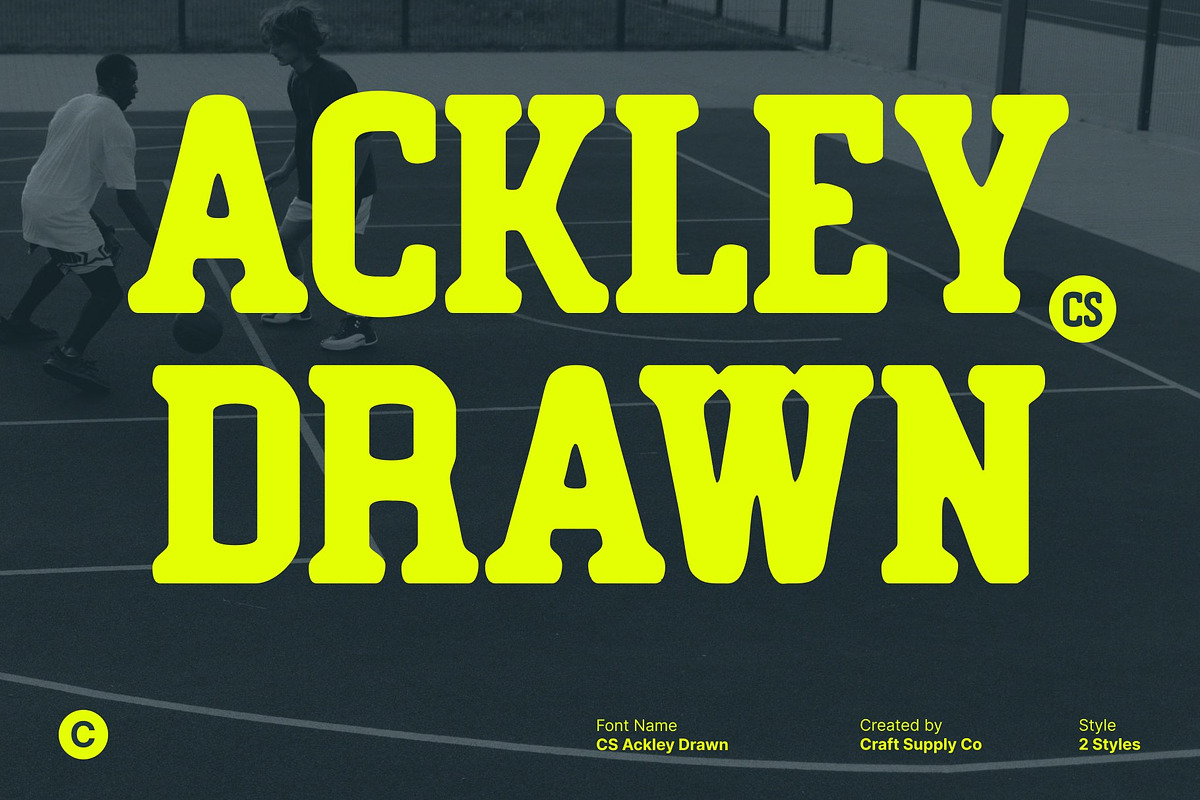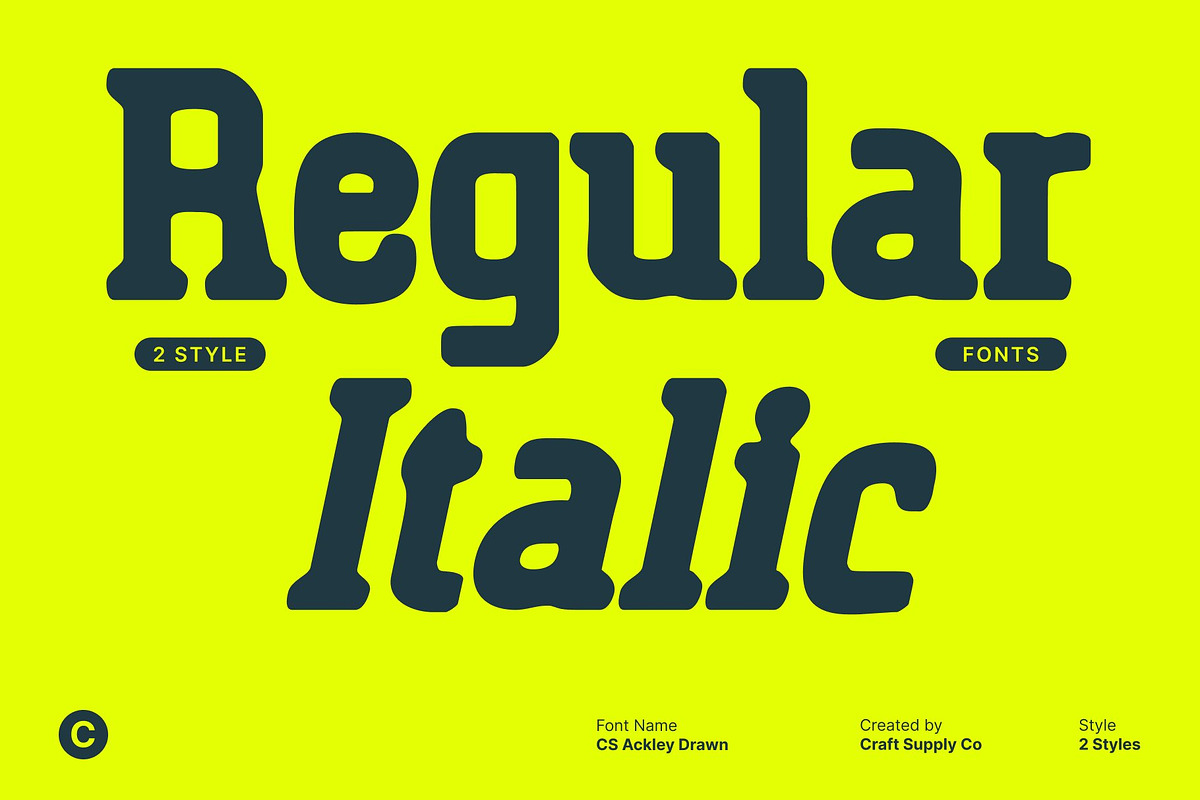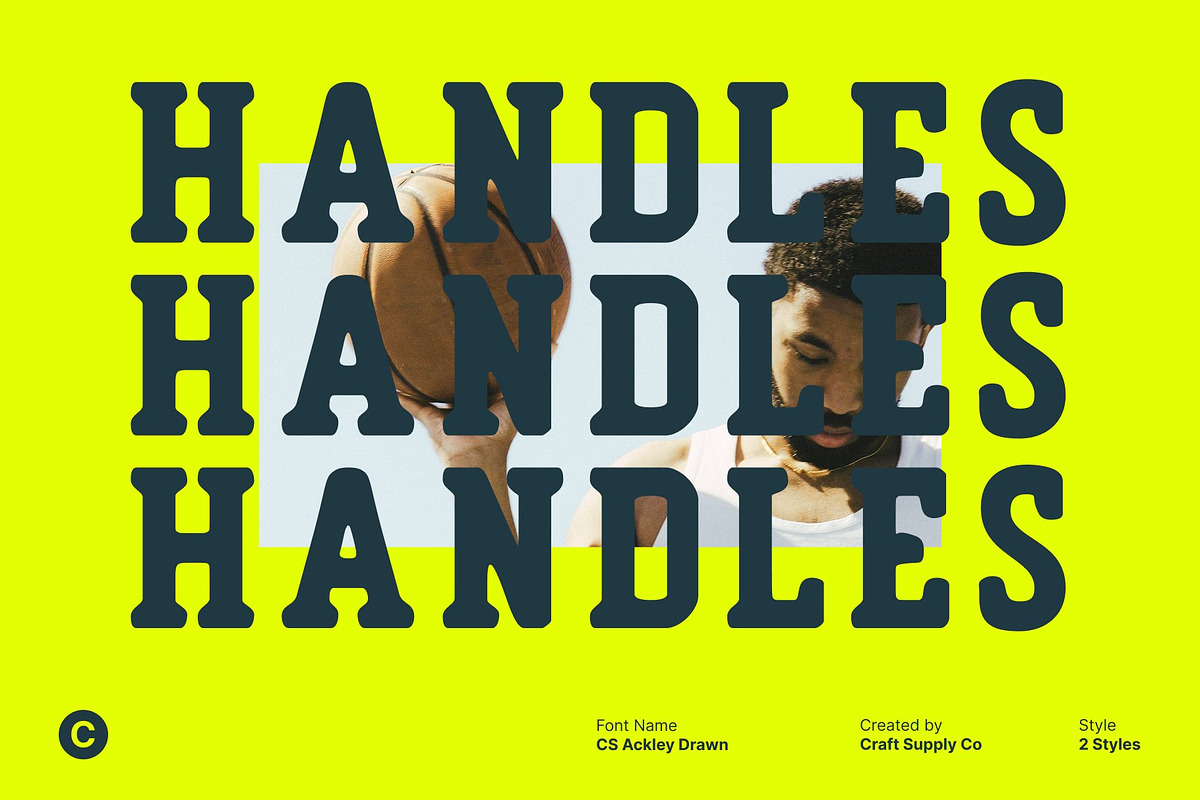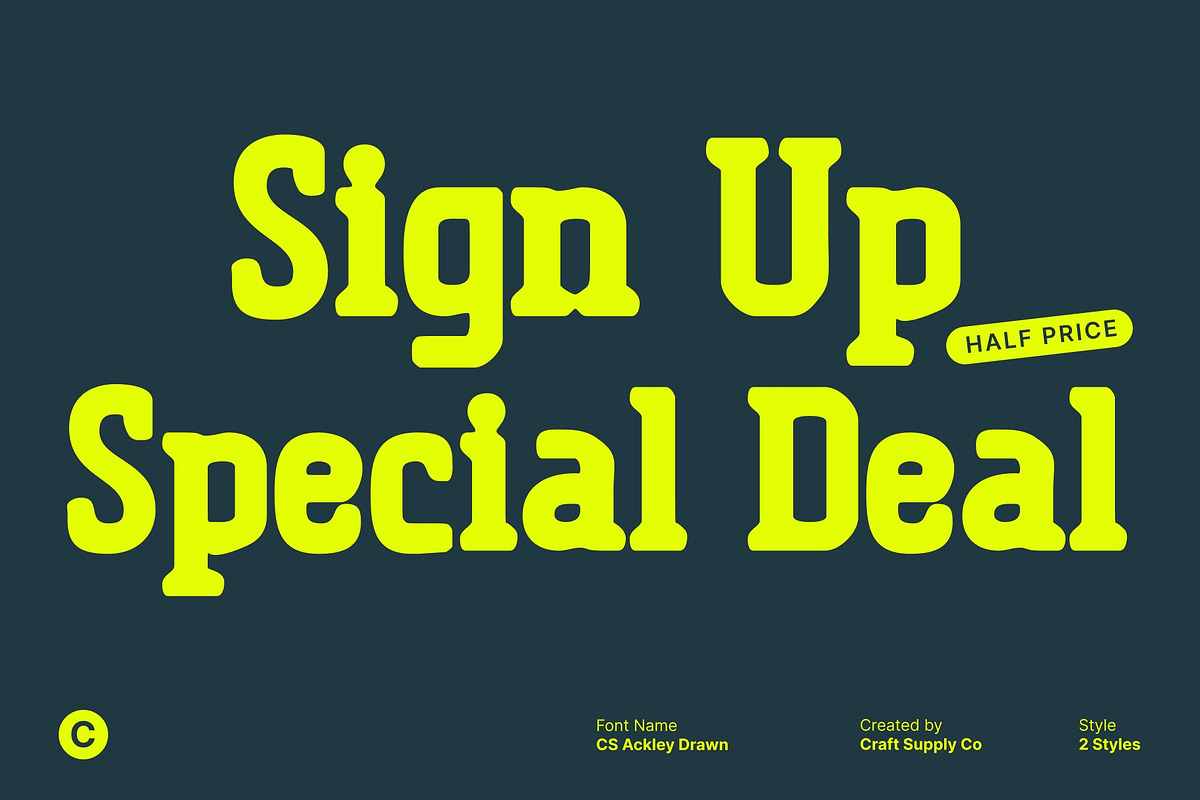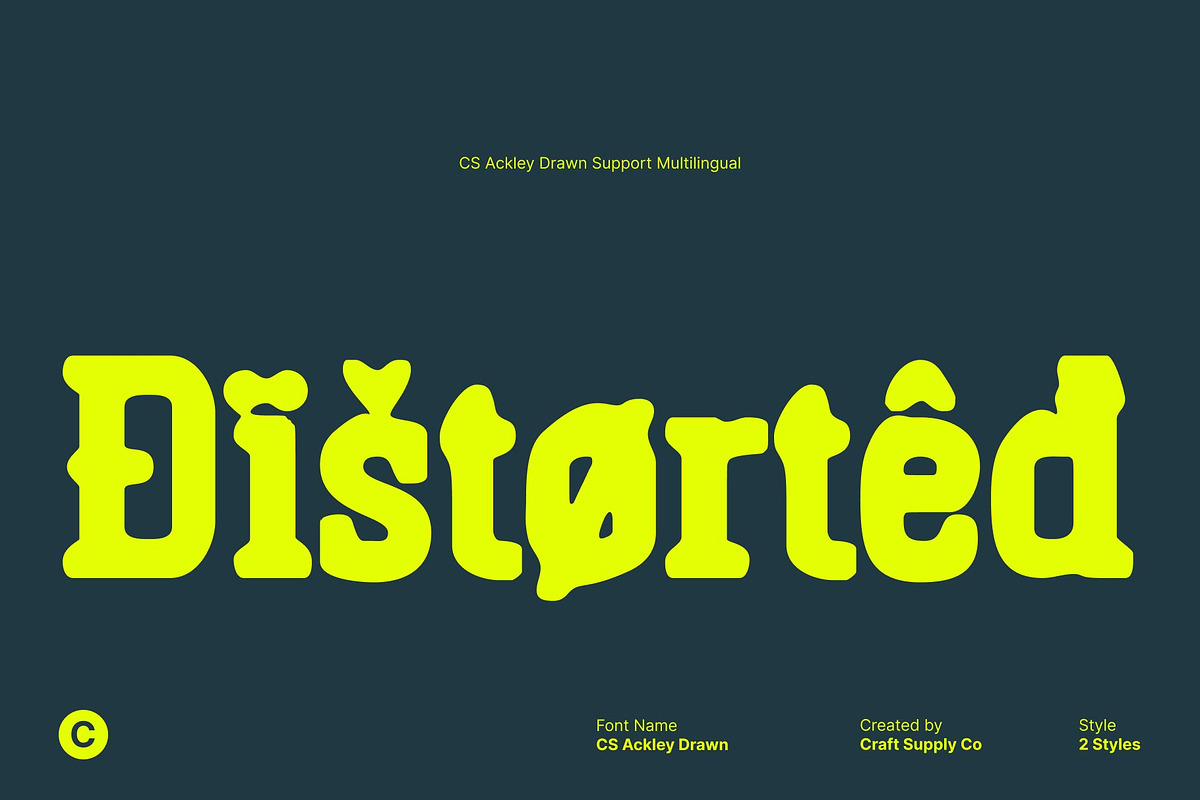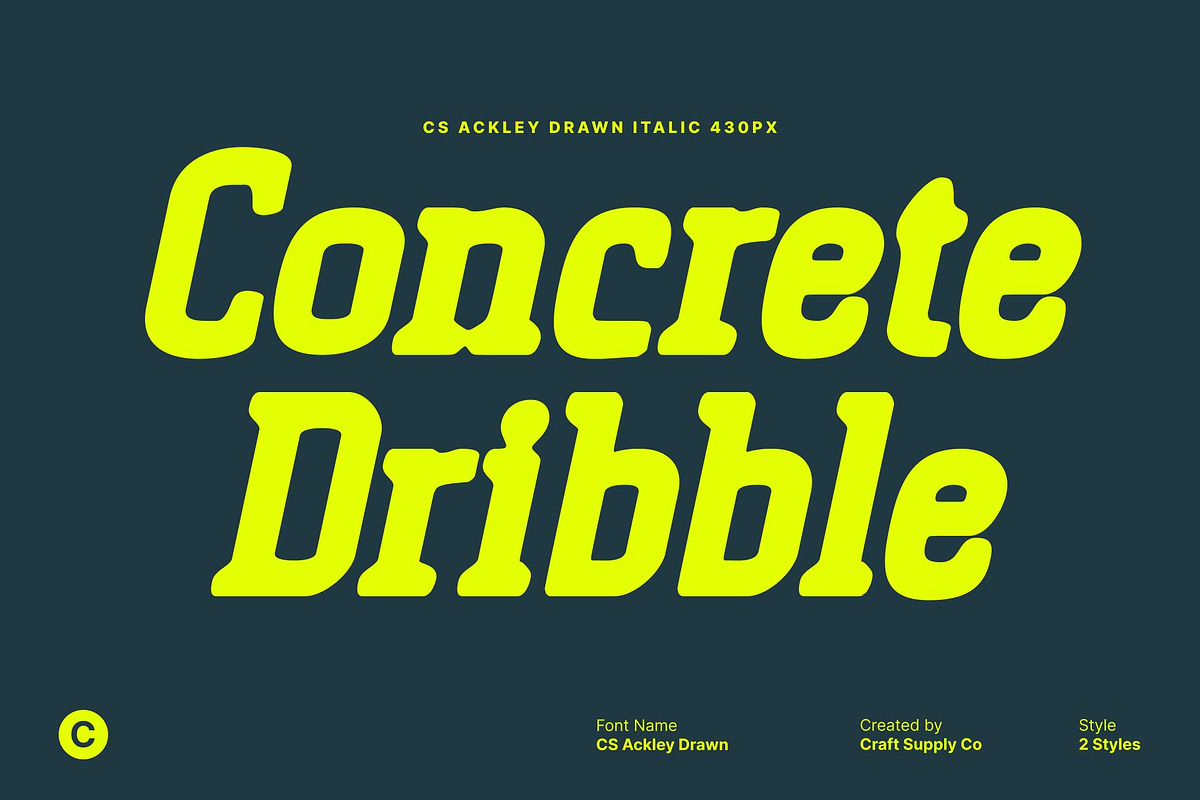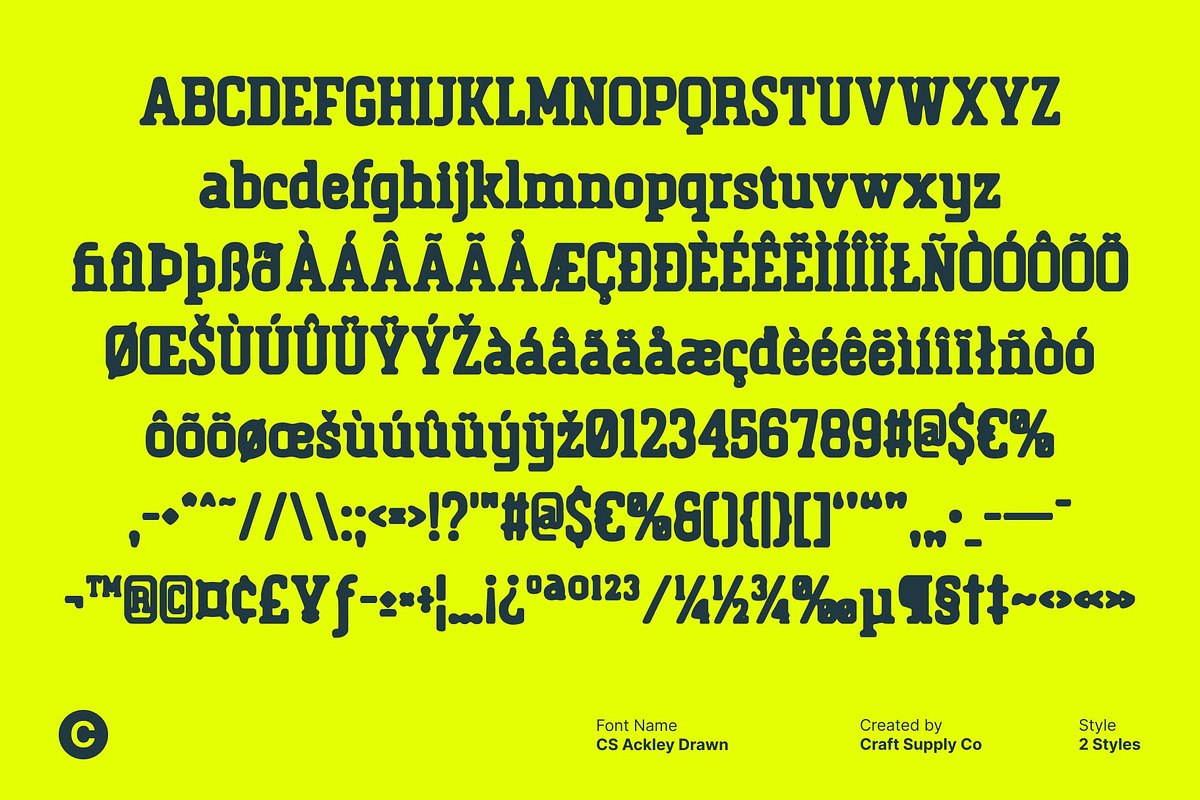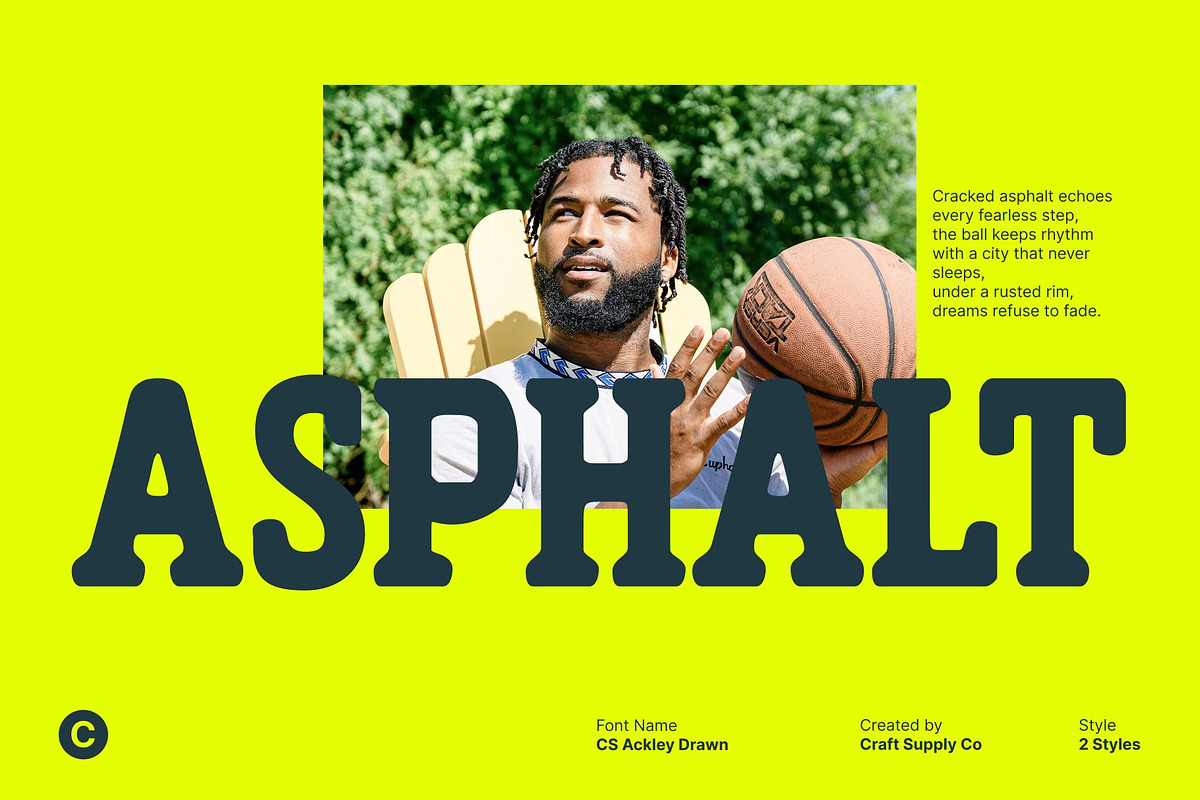
CS Ackley Drawn
CS Ackley Drawn – Bold Slab Serif with a Industrial Presence
Powerful Slab Serif Structure with Hand-Drawn Character This is a bold slab serif font designed to deliver a strong, industrial, and highly assertive visual impact. Its thick strokes, sturdy slab serifs, and confident proportions create a solid typographic foundation, while the drawn texture adds a raw, handcrafted edge. The result is a font that feels tough, expressive, and full of character.
High Readability Built for Large-Scale Impact Designed with clarity and strength in mind, this font excels in large-format applications. Its bold letterforms remain sharp and legible from a distance, making it ideal for headlines, posters, billboards, advertisements, and signage. Even at large sizes, the drawn details enhance visual interest without sacrificing readability.
Modern, Sturdy, and Brand-Driven Design With its modern construction and durable slab serifs, this font communicates reliability, confidence, and authority. The industrial tone makes it a perfect choice for branding that needs to feel strong and grounded. Logos, packaging, and promotional materials gain a bold, trustworthy voice that leaves a lasting impression.
Ideal for Sports, Events, and Energetic Visuals This font truly shines in sports and high-energy design projects. Its powerful stance and dynamic rhythm amplify intensity and motion, making it ideal for team branding, sportswear, event graphics, and competitive visuals. This font brings strength, momentum, and bold personality to every design it supports.